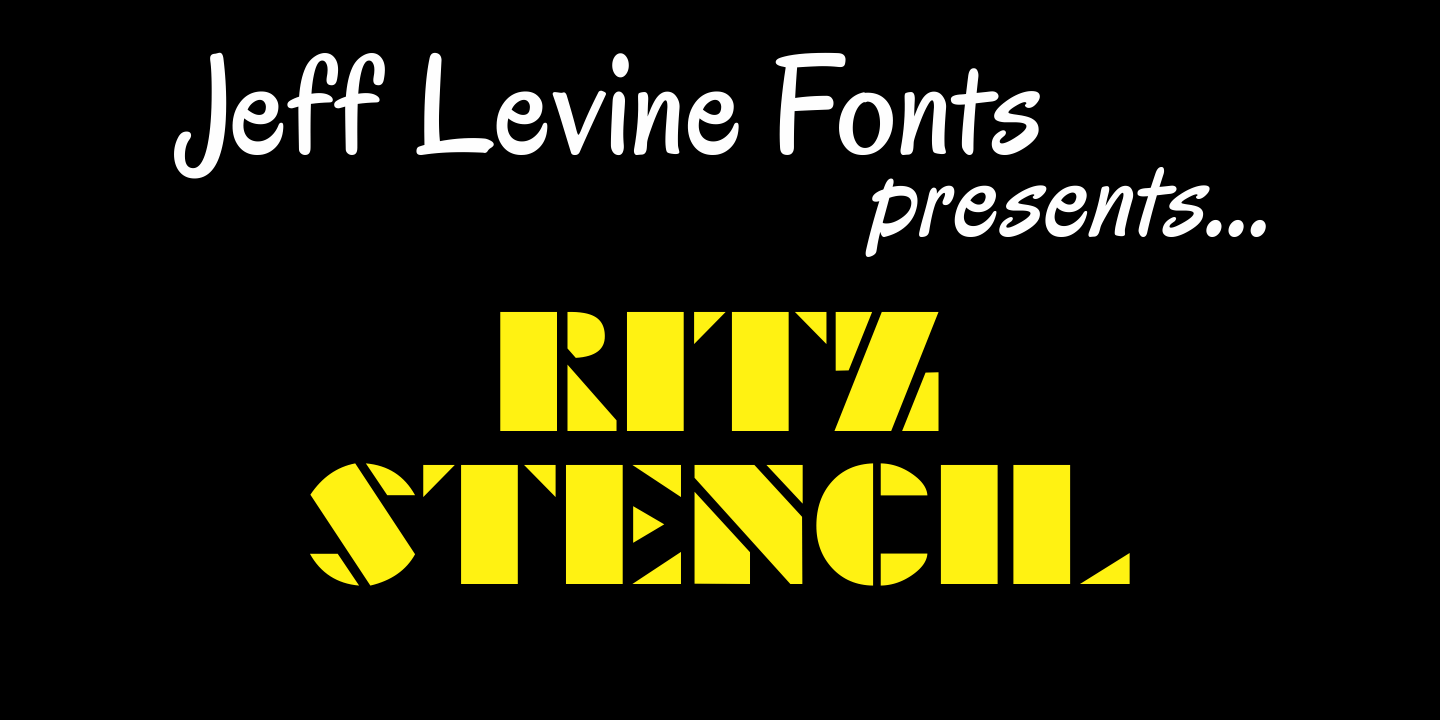
Ritz Stencil
Browsing online auctions and other webs sites often unearths wonderful examples of lettering from the past. A perfect example is Ritz Stencil JNL, modeled after a page from a 1930s-era lettering book. Although this font has similar characteristics to other better-known designs, there are enough unique differences to let it stand on its own as a great example of the Art Deco era.
Ritz Stencil JNL Regular by Jeff Levine Fonts